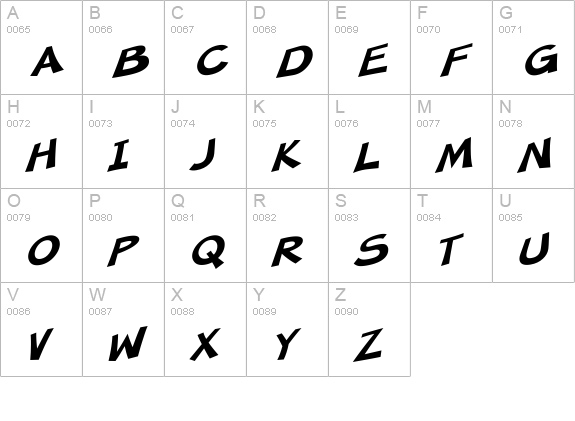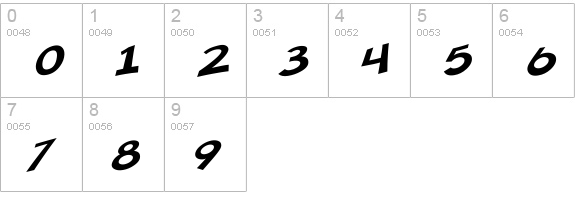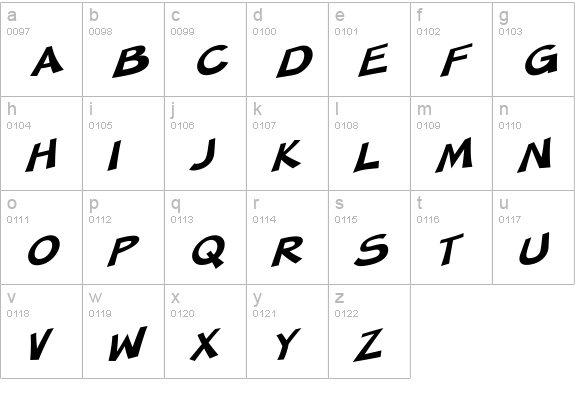
SF Minced Meat Oblique Font Details
SF Minced Meat Oblique is a distinctive, italic variant in the SF typeface family \xE2\x80\x94 well suited to design and typography projects.
SF Minced Meat Oblique is a bold and edgy font that combines the perfect balance of sophistication and playfulness. With its unique and distinctive design, this font is sure to make a statement in any project or design. This font features sharp and angular letterforms that give it a modern and futuristic vibe. The slanted and oblique nature of the typeface adds a sense of dynamism and movement, making it perfect for creating eye-catching headlines and titles. SF Minced Meat Oblique is not only visually appealing, but it also offers great legibility, ensuring that your message is clear and easy to read. Whether you're designing a logo, poster, website, or any other creative project, this versatile font will bring your ideas to life. What's even better is that SF Minced Meat Oblique is available for free download at FontsMarket.com. You can easily access and use this font in your projects without any restrictions. Whether you're a professional designer or just someone looking to add some flair to your personal projects, this font is a must-have. So why wait? Download SF Minced Meat Oblique today and unleash your creativity with this bold and striking font. Whether you're creating a modern and sleek design or aiming for a more avant-garde look, this font will be the perfect addition to your typography arsenal. Don't miss out on this amazing opportunity to get a high-quality font for free.